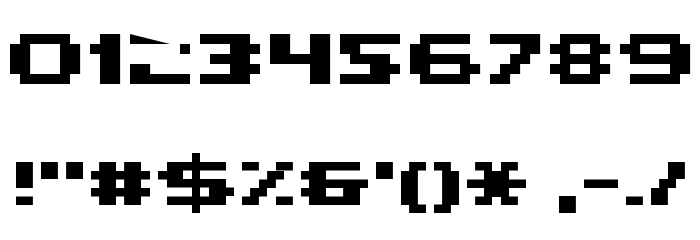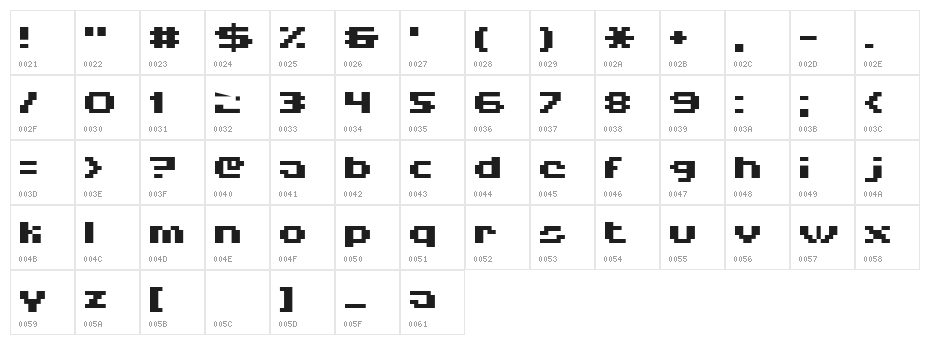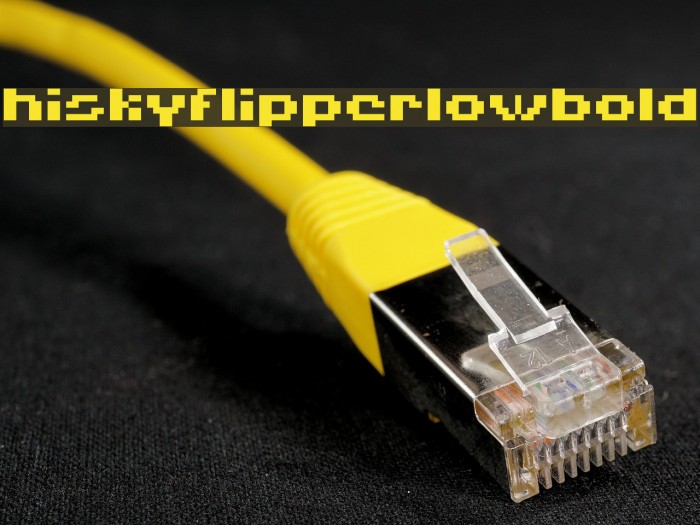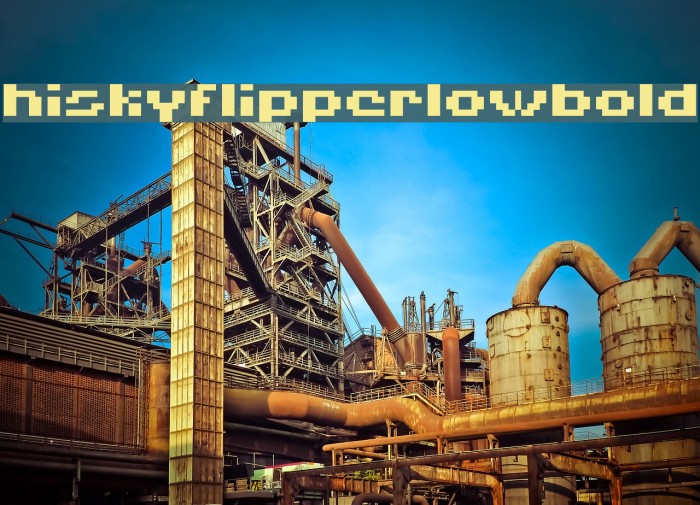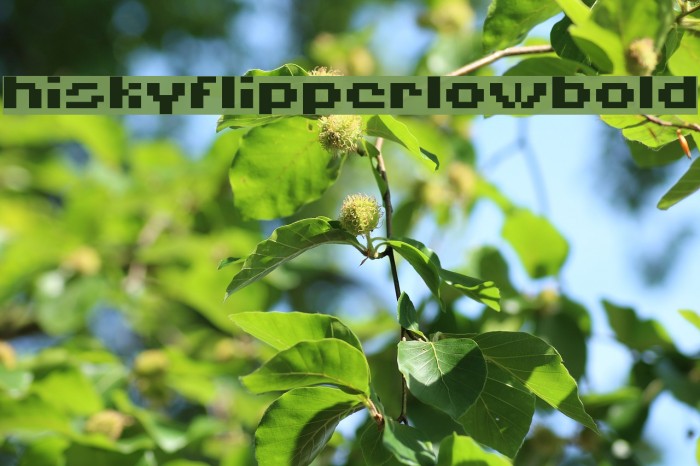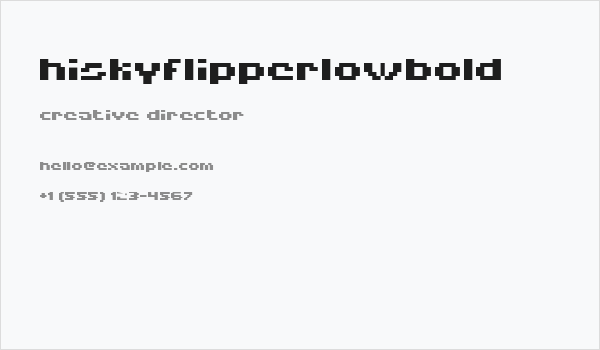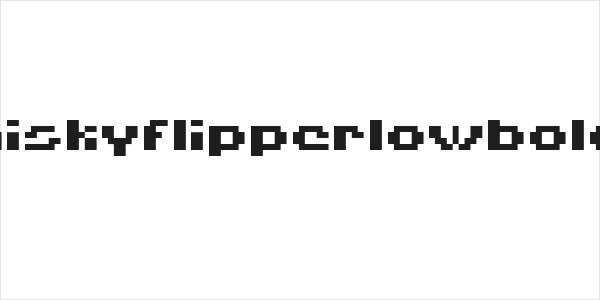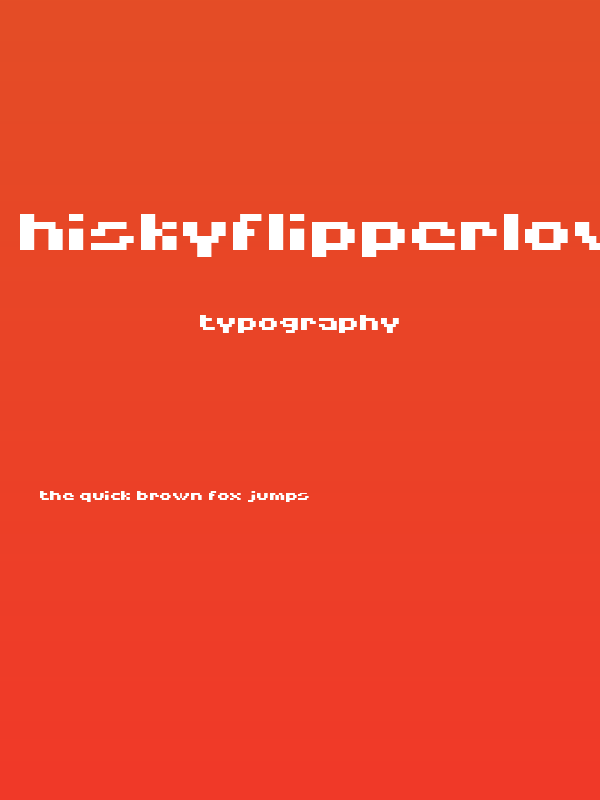
HISKYFLIPPERLOWBOLD Font
HISKYFLIPPERLOWBOLD Description
This font features a bold, pixelated design reminiscent of early digital displays and retro gaming aesthetics. Each character is constructed with a blocky, geometric style, giving it a distinct, tech-inspired look. The uppercase and lowercase letters maintain a consistent height, enhancing its uniform appearance. Numbers and special characters are crafted with the same pixelated precision, ensuring a cohesive visual experience. The font's simplicity and clarity make it highly legible, even at smaller sizes, while its unique style adds a playful, nostalgic touch to any project.
Overall StyleRetro, Digital
Use CaseHeadlines, Logos, Digital Art
Proposed ProjectsIdeal for retro-themed designs, video game graphics, digital art projects, and tech-related branding.